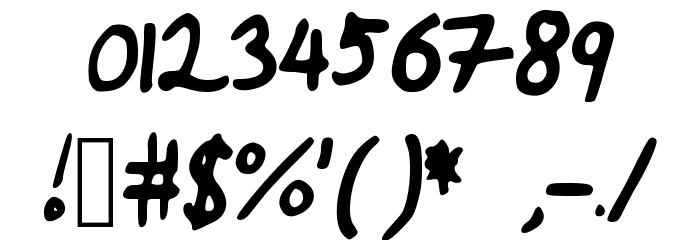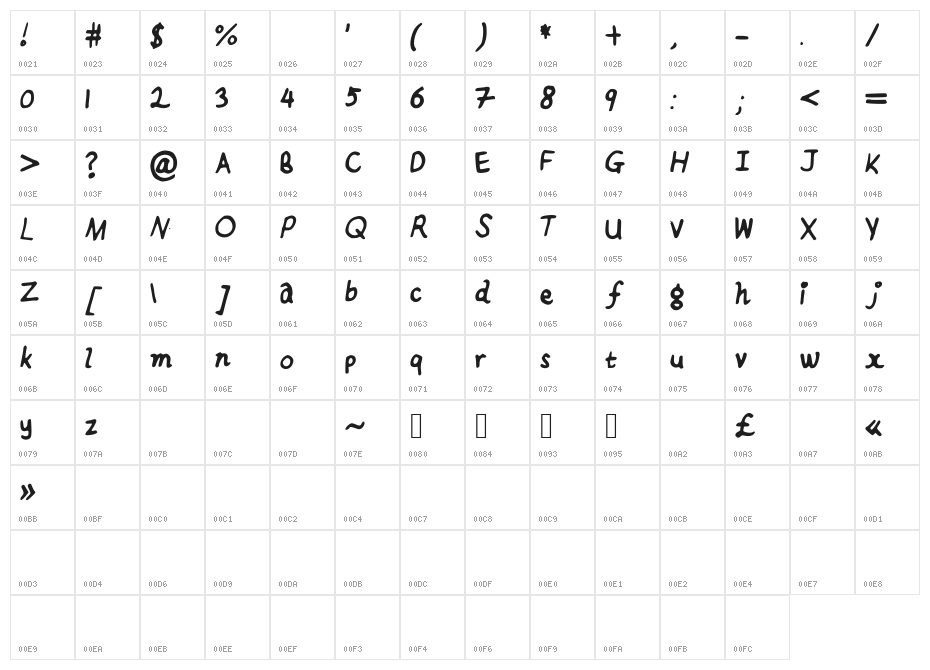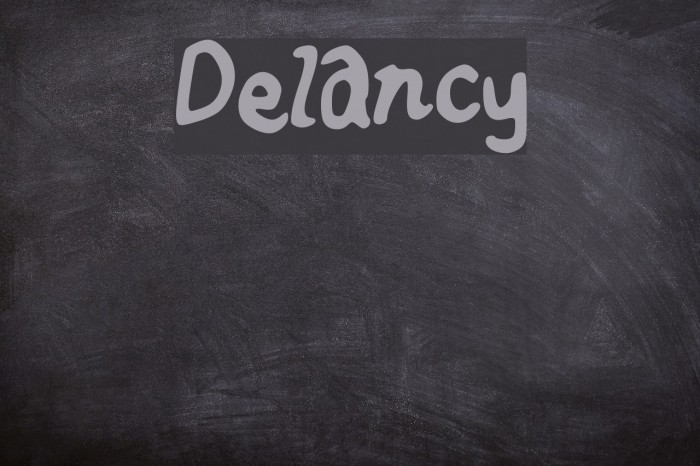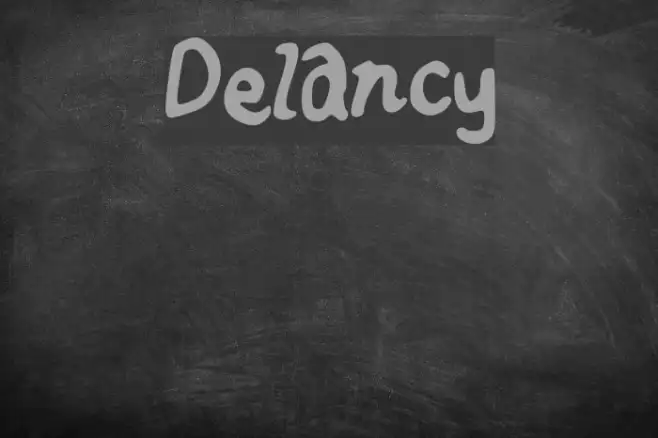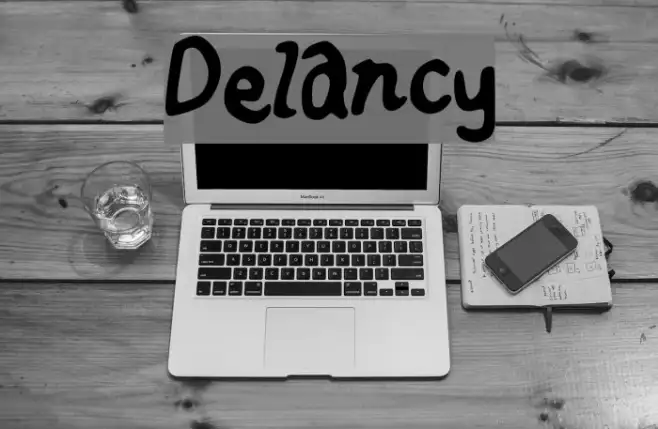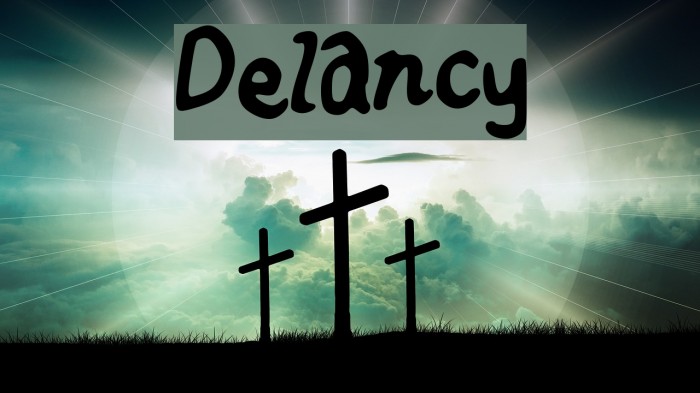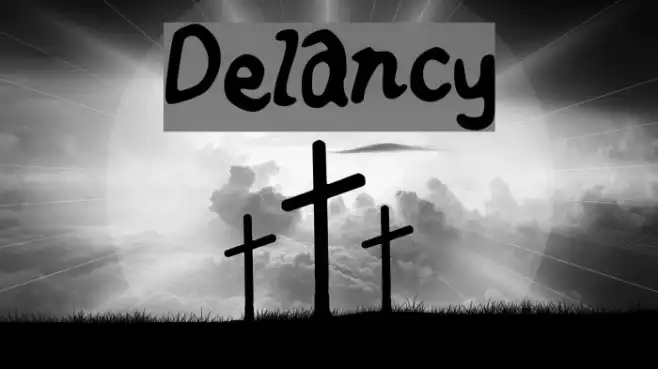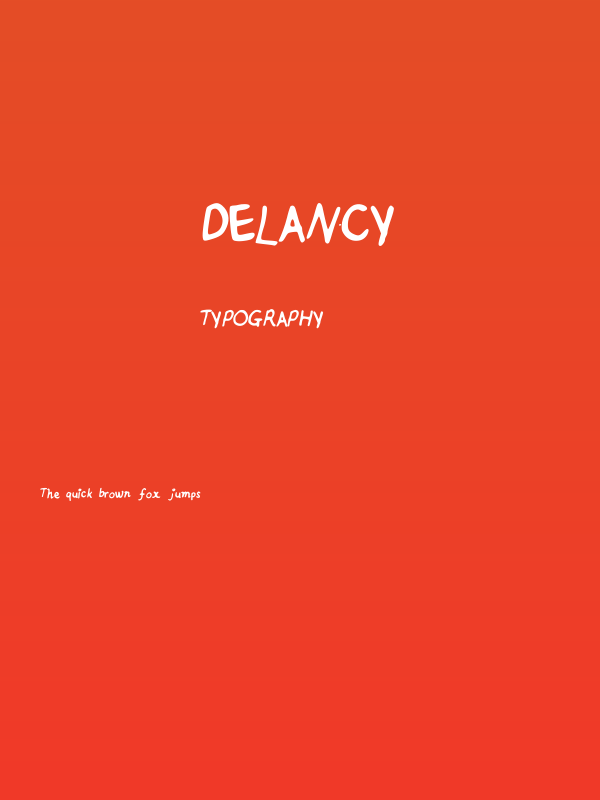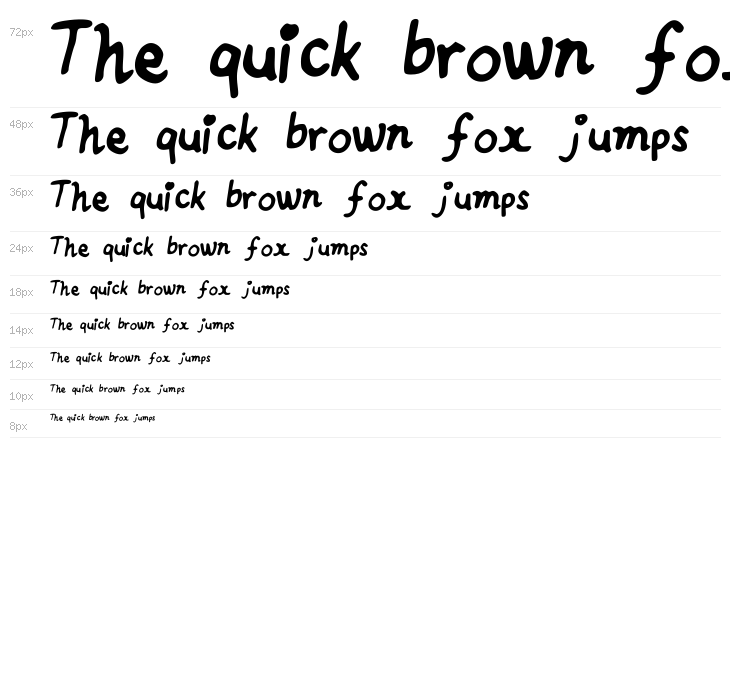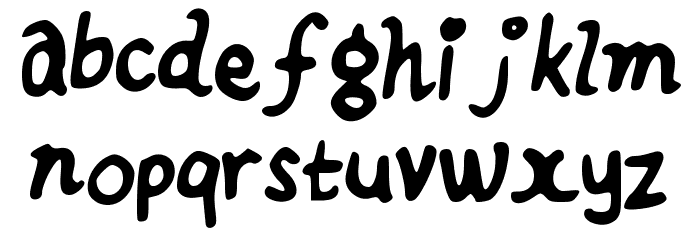
Delancy Font
Delancy Description
This playful and bold font features a handwritten style with a casual and informal appearance. The letters are slightly irregular, giving it a whimsical and friendly feel. The strokes are thick and rounded, contributing to its approachable and lively character. The uppercase and lowercase letters maintain a consistent style, with the lowercase letters exhibiting a slight slant. The numbers and special characters are designed to match the overall playful aesthetic, making it suitable for creative and fun projects.
| Proposed Projects | Ideal for children's books, playful branding, greeting cards, and informal invitations. |